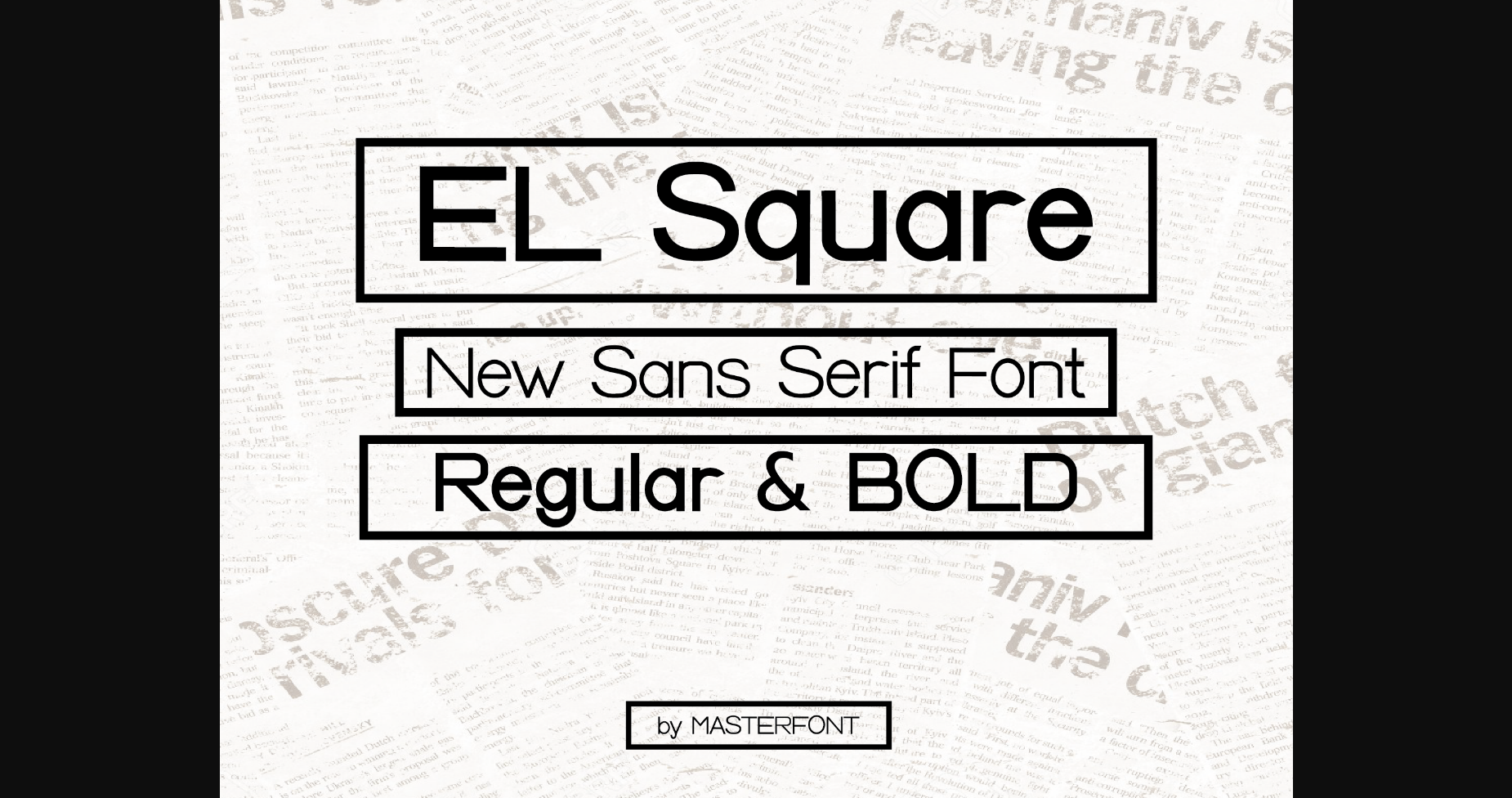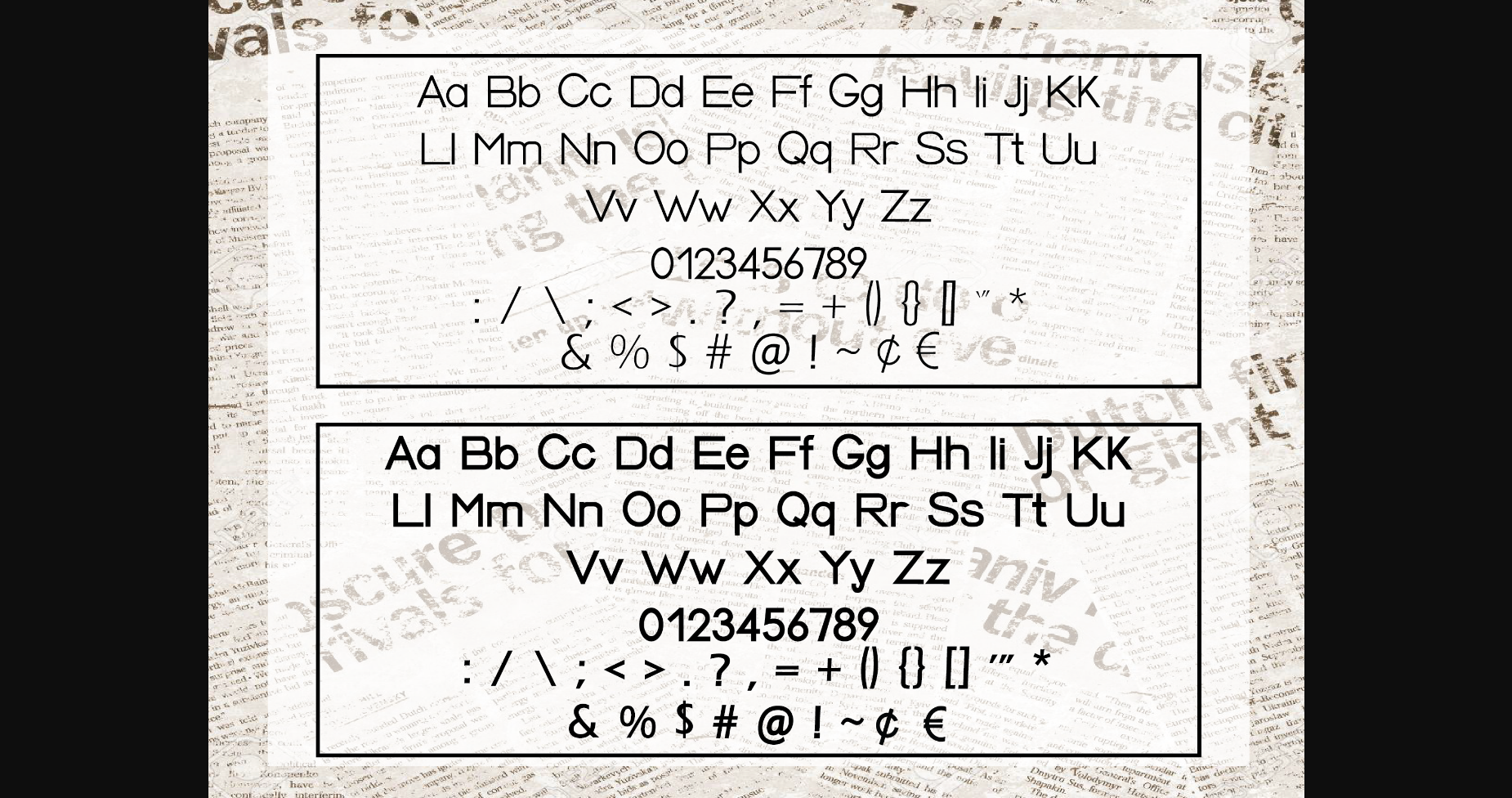
El Square is a minimal and cool sans serif font. It can easily be matched to an incredibly large set of projects, so add it to your creative ideas and notice how it makes them stand out!